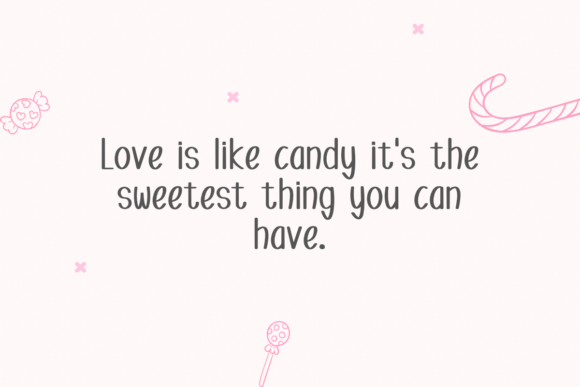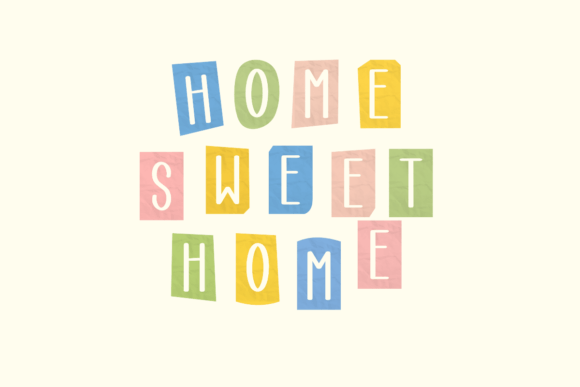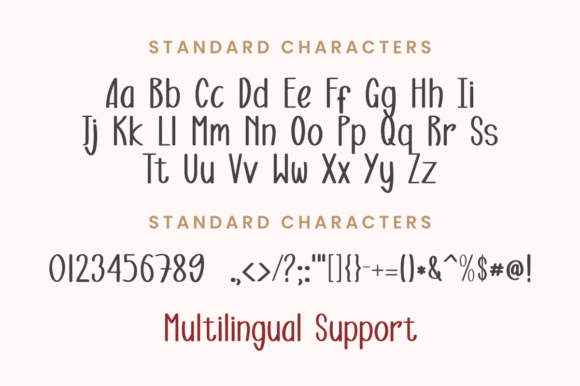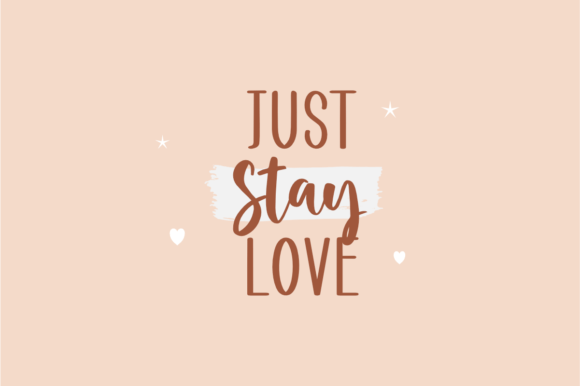
Candyland Font: A Delightful and Whimsical Typeface for Your Designs
Are you looking for a font that can add a touch of magic and wonder to your designs? Look no further than Candyland Font, a delightful and whimsical typeface that captures the playful essence of a candy-filled wonderland. With its tall and elongated letterforms, this handwritten font is perfect for designers and crafters who want to add a sense of fun and uniqueness to their projects.
The Characteristics of Candyland Font
Candyland Font is a one-of-a-kind typeface that features tall and slender characters, creating a visually striking display that’s perfect for capturing attention and creating a memorable impression. Its elegant and charming letterforms are reminiscent of a fairy tale, making it ideal for designs that require a touch of whimsy and playfulness.
One of the standout features of Candyland Font is its handwritten style, which gives it a personal and organic feel. The font’s tall and elongated letterforms are carefully crafted to create a sense of movement and fluidity, making it perfect for designs that require a sense of dynamism and energy.
Uses for Candyland Font
Candyland Font is a versatile typeface that can be used for a wide range of design projects, including:
- Invitations: Whether you’re planning a birthday party, wedding, or baby shower, Candyland Font is the perfect choice for creating eye-catching and memorable invitations.
- Greeting Cards: Add a touch of whimsy and personality to your greeting cards with Candyland Font, perfect for special occasions like holidays, birthdays, and anniversaries.
- Logos and Branding: Use Candyland Font to create a unique and memorable logo for your business or brand, perfect for companies that want to stand out from the crowd.
- Branding Materials: From brochures to packaging, Candyland Font is a great choice for creating branding materials that are both fun and professional.
Why Choose Candyland Font?
So why choose Candyland Font for your design projects? Here are just a few reasons:
- Unique and Playful: Candyland Font is a one-of-a-kind typeface that adds a touch of whimsy and playfulness to any design.
- Elegant and Charming: With its tall and elongated letterforms, Candyland Font is both elegant and charming, making it perfect for designs that require a touch of sophistication.
- Attention-Grabbing: The font’s visually striking display is perfect for capturing attention and creating a memorable impression.
- Versatile: Candyland Font can be used for a wide range of design projects, from invitations to logos and branding materials.
Tips for Using Candyland Font
Here are a few tips for using Candyland Font in your design projects:
- Pair with Other Fonts: Experiment with pairing Candyland Font with other fonts to create a unique and eye-catching display.
- Use for Headlines: Candyland Font is perfect for headlines and titles, where its tall and elongated letterforms can really make an impact.
- Add a Pop of Color: Use Candyland Font to add a pop of color and whimsy to your designs, perfect for creating a fun and playful atmosphere.
| Font Name | Candyland Font |
| Author | perkasyabayu |
In conclusion, Candyland Font is a delightful and whimsical typeface that’s perfect for designers and crafters who want to add a touch of magic and wonder to their designs. With its tall and elongated letterforms, elegant and charming style, and versatile uses, Candyland Font is a great choice for a wide range of design projects. So why not let your creativity run wild with Candyland Font and add a sweet touch to your designs?